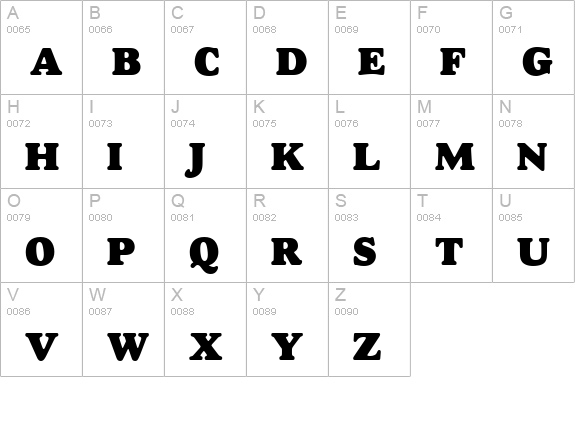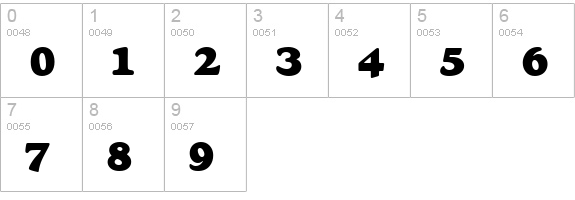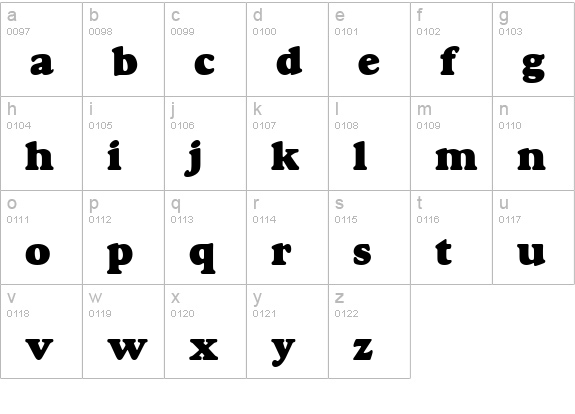
GoudyHeaD Font Details
GoudyHeaD font is a timeless and elegant typeface that exudes sophistication and charm. With its classic serifs and graceful curves, this font is perfect for adding a touch of refinement to any design project. Whether you're creating invitations, logos, or signage, GoudyHeaD will elevate your work to new heights. The best part? This exquisite font is available for free download at FontsMarket.com. Simply visit the website and start using GoudyHeaD in your projects today. Don't miss out on this opportunity to enhance your designs with the beauty and elegance of GoudyHeaD font.